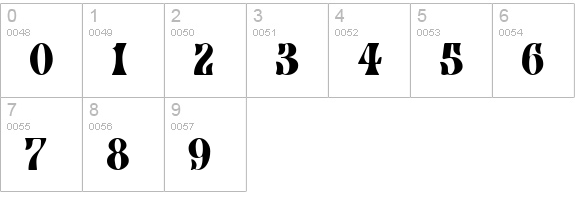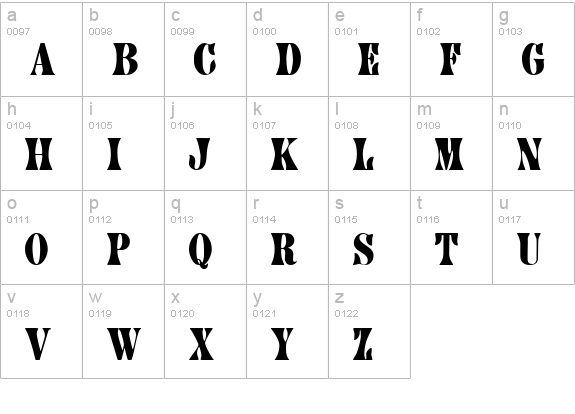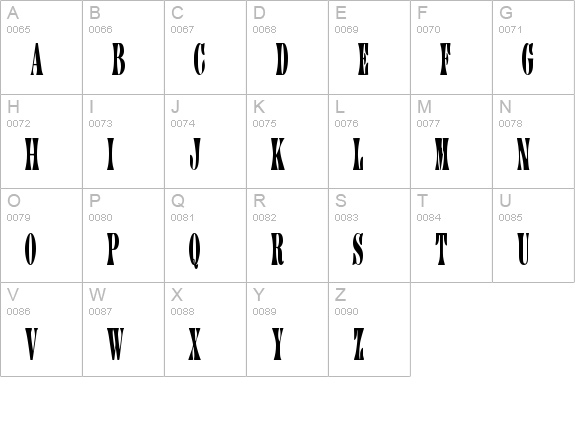
AfterMidnightSale Font Details
Introducing AfterMidnightSale font, a stylish and modern typeface perfect for adding a touch of elegance to your designs. With its sleek lines and sophisticated appearance, this font is sure to make a statement. Whether you're creating branding materials, invitations, or social media posts, AfterMidnightSale font will elevate your projects to the next level. The best part? AfterMidnightSale font is available for free download at FontsMarket.com. This means you can easily access this beautiful font and start using it in your projects right away. Don't miss out on the opportunity to enhance your designs with this stunning typeface. Download AfterMidnightSale font today and let your creativity shine!